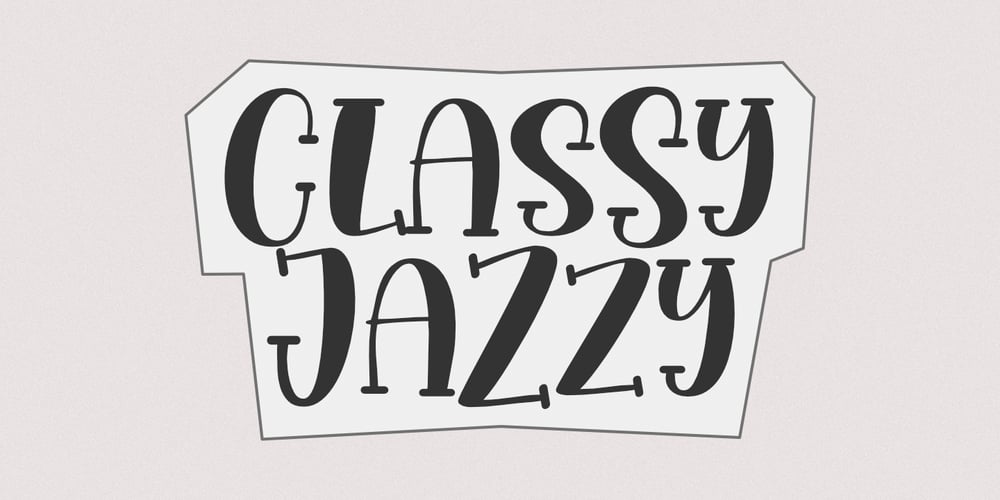
Classy Jazzy Font Family was designed by Aldy Sidik and published by Epiclinez. Classy Jazzy contains 1 styles and family package options. Classy Jazzy is a lovely serif font featuring charming, playful characters that seem to dance along the baseline. Add this font to your most creative ideas, and notice how it makes them stand out!So what’s included : Basic Latin A-Z & a-z Numbers, symbols, and punctuations Accented Characters : ÀÁÂÃÄÅÆÇÈÉÊËÌÍÎÏÑÒÓÔÕÖØŒŠÙÚÛÜŸÝŽàáâãäåæçèéêëìíîïñòóôõöøœšùúûüýÿžß Thank you